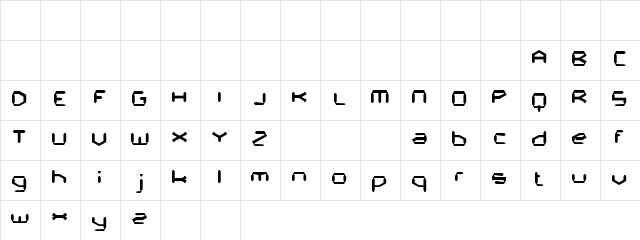
Flotsam Astronaut Regular
Design Context for Flotsam Astronaut Typeface
Flotsam Astronaut takes a measured approach to typography — its balanced proportions and neutral character make it a reliable workhorse for both digital and print work.